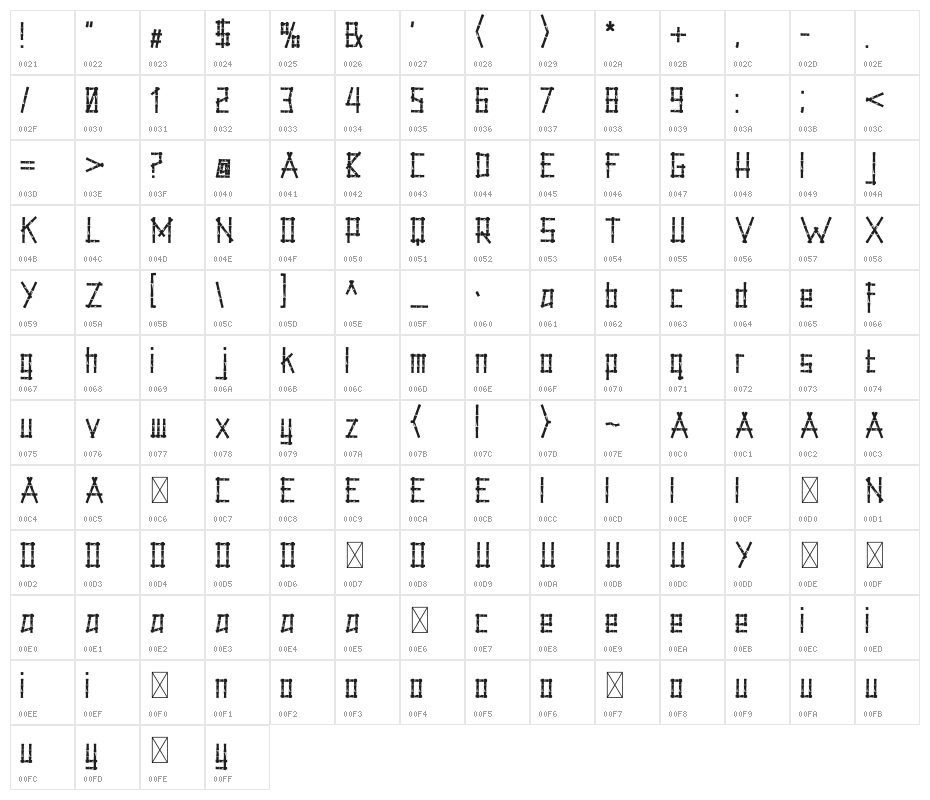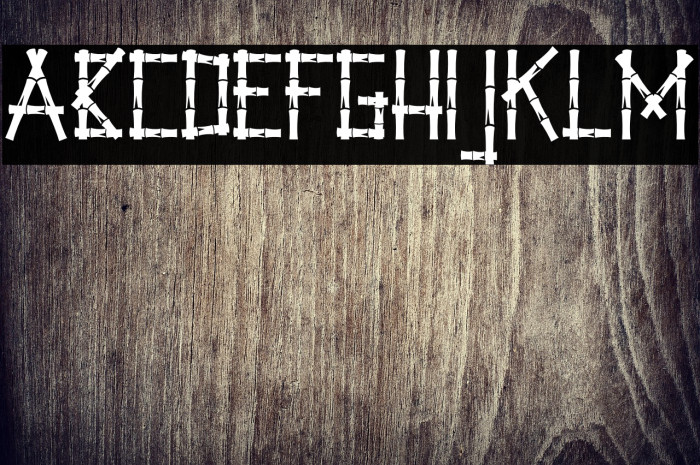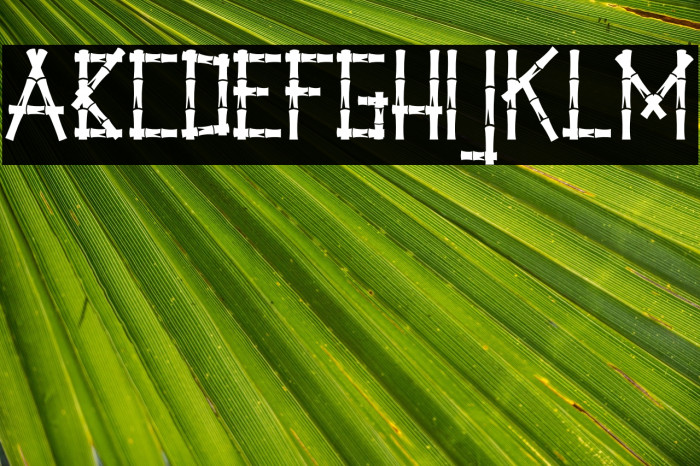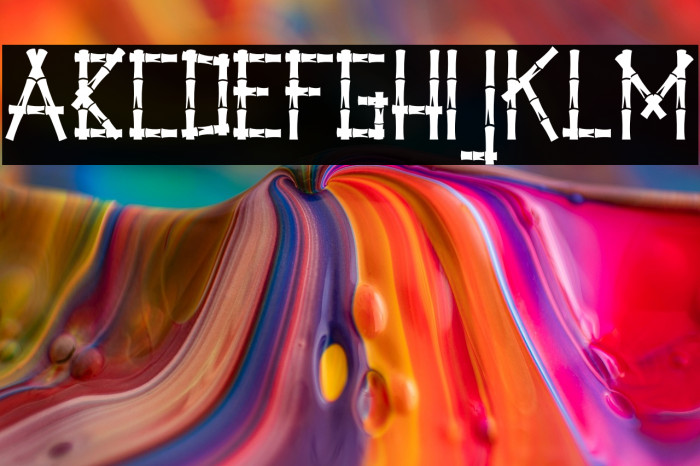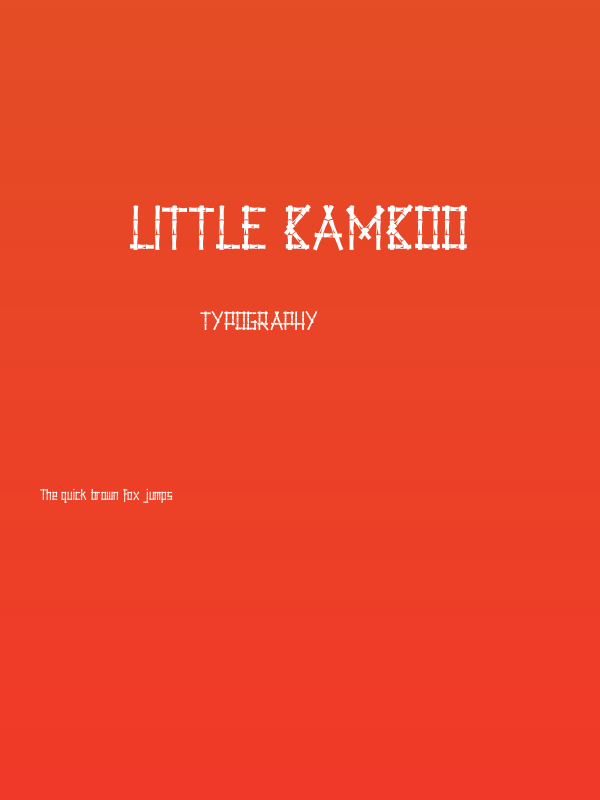
Little Bamboo Font
Little Bamboo Description
This font features a unique and creative design that mimics the appearance of bamboo stalks. Each character is constructed with segments resembling bamboo, giving it a natural and organic feel. The uppercase and lowercase letters maintain a consistent style, with angular and straight lines forming the structure of each letter. Numbers and special characters are also designed in the same bamboo-inspired style, ensuring a cohesive look across all glyphs. The font's distinct appearance makes it stand out, ideal for projects that require an exotic or nature-themed aesthetic.
| Proposed Projects | Ideal for eco-friendly branding, nature-themed posters, or Asian-inspired restaurant menus. |